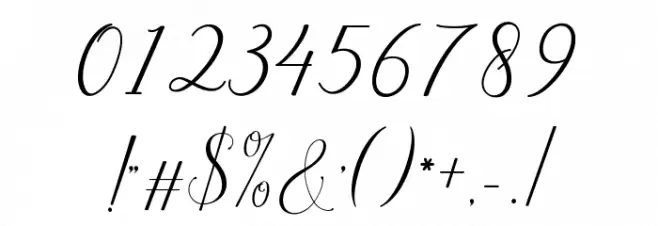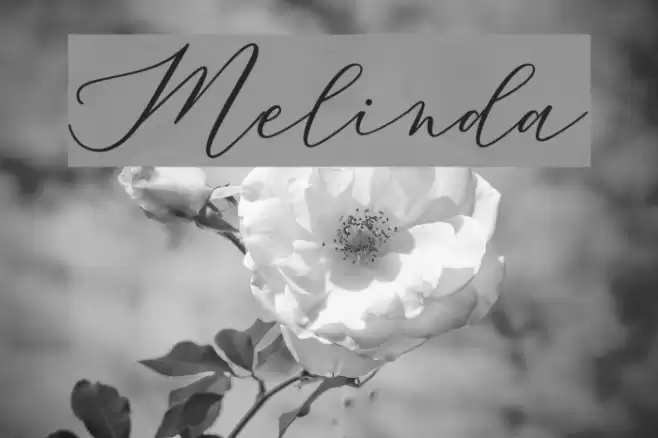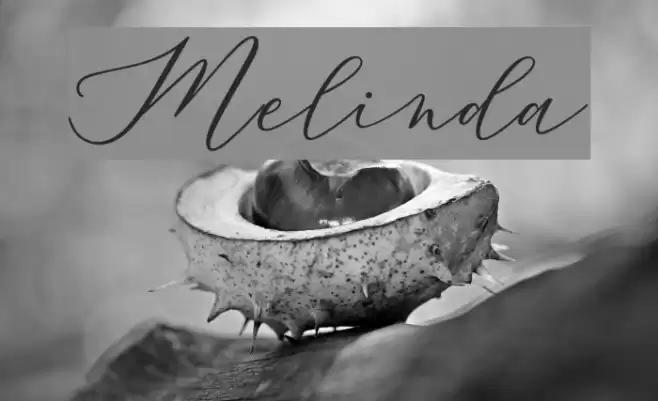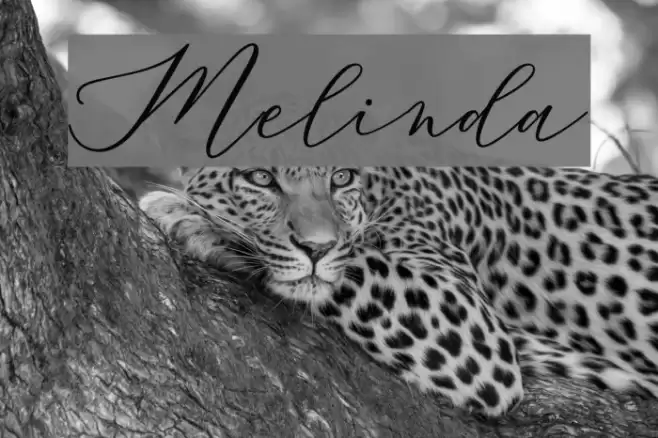
Melinda Font
Melinda Description
This elegant script font features beautifully flowing, interconnected letters that exude a sense of sophistication and grace. The uppercase letters are adorned with delicate flourishes, adding a touch of classic charm. The lowercase letters maintain a smooth, cursive style, ensuring readability while retaining an artistic flair. The numerals are consistent with the script style, offering a cohesive look across all characters. Special characters are thoughtfully designed to match the overall aesthetic, making this font ideal for projects that require a personal, handwritten touch.
An elegant, flowing script font with interconnected letters and delicate flourishes from Uncategorized fonts.
• Proposed Projects: Ideal for wedding invitations, elegant branding, personal stationery, and artistic projects.
• Contrast: Medium
• Overall Style: Classic
• Use Case: Logos, Invitations, Decorative text